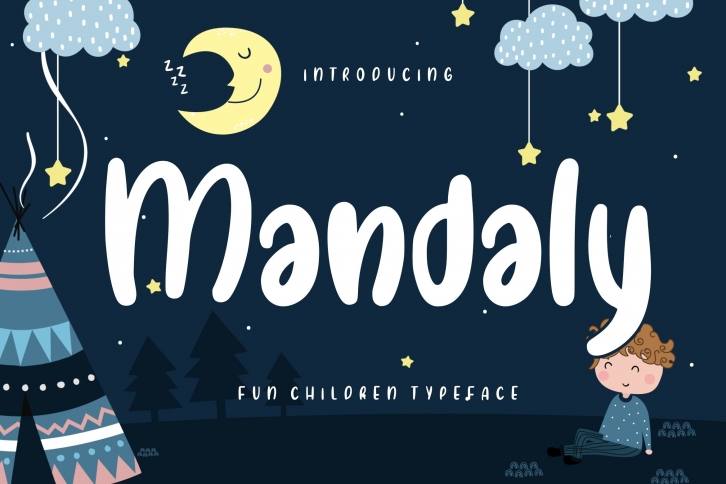
Mandaly Fun Children Typeface is a trendy and unique font with an authentic style. It was designed by Creatype Studio and it's a great choice for creative people who need such a font. It was released on June 22, 2020 and the file size is 21.7 MB. Mandaly Fun Children Typeface will add an organic vibe to any design idea!